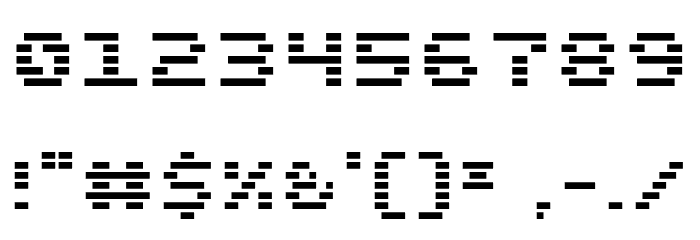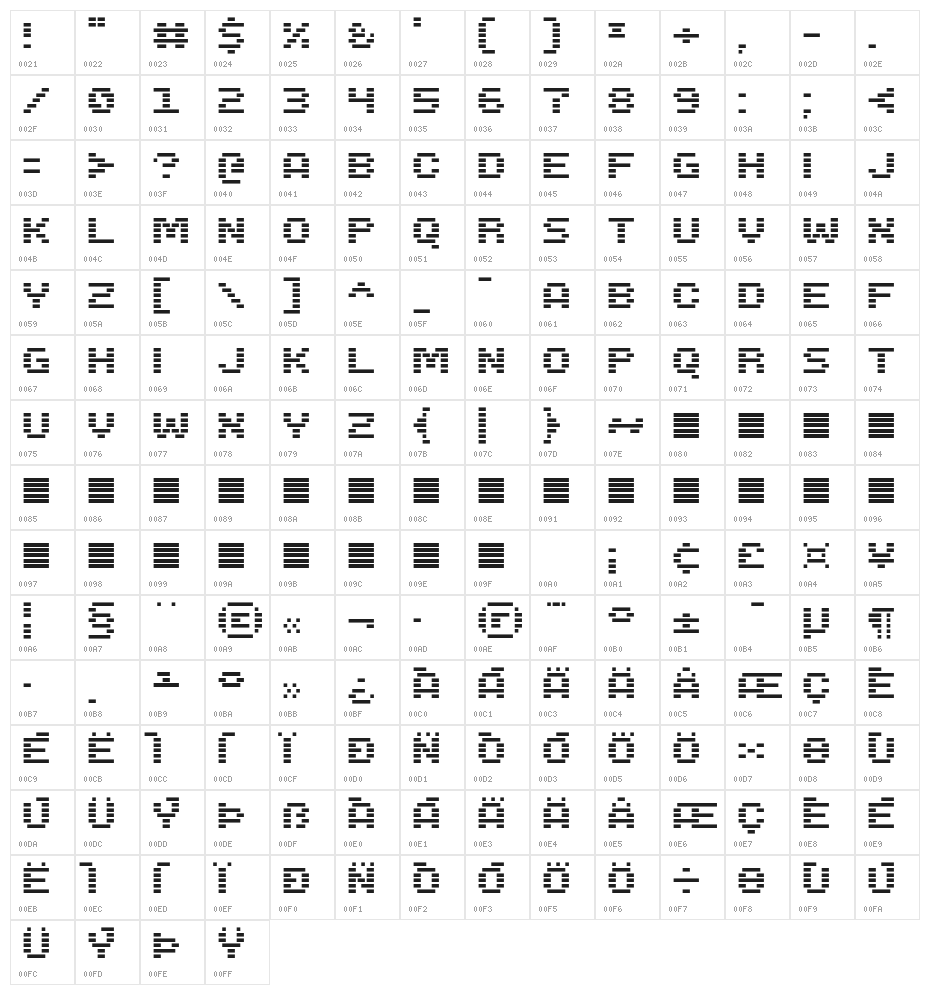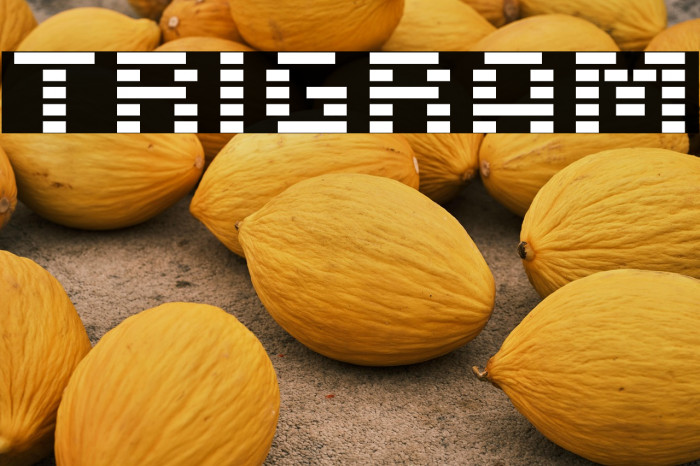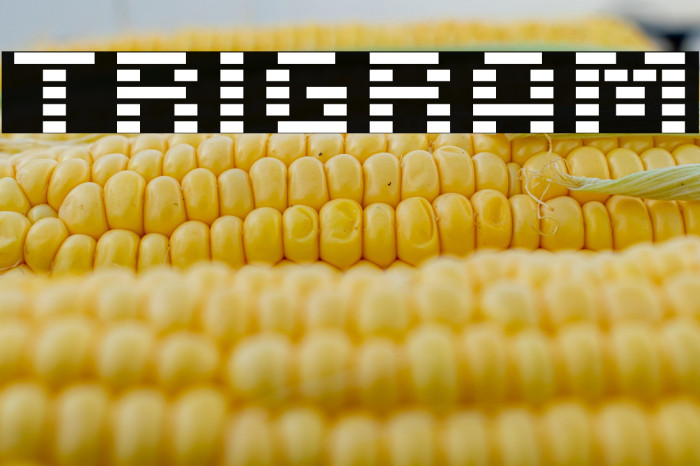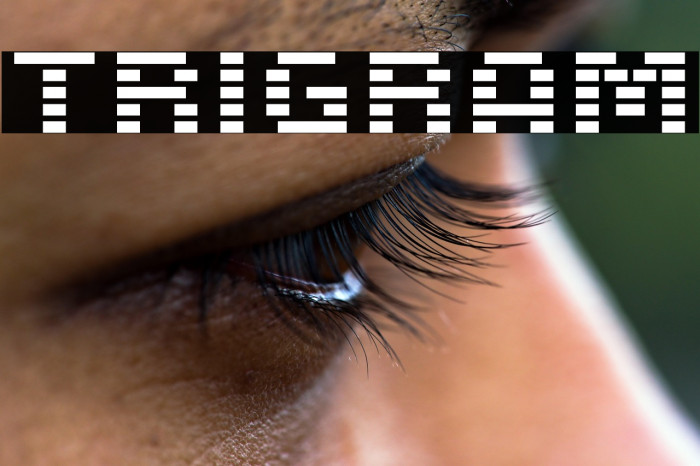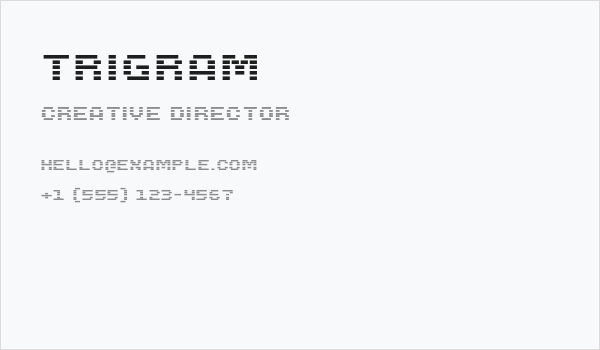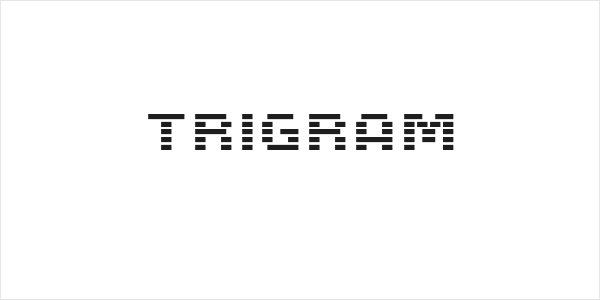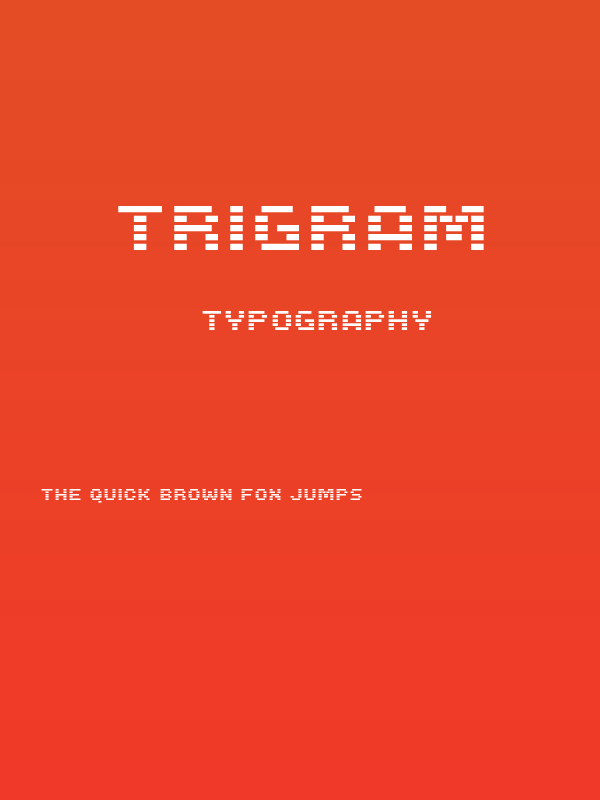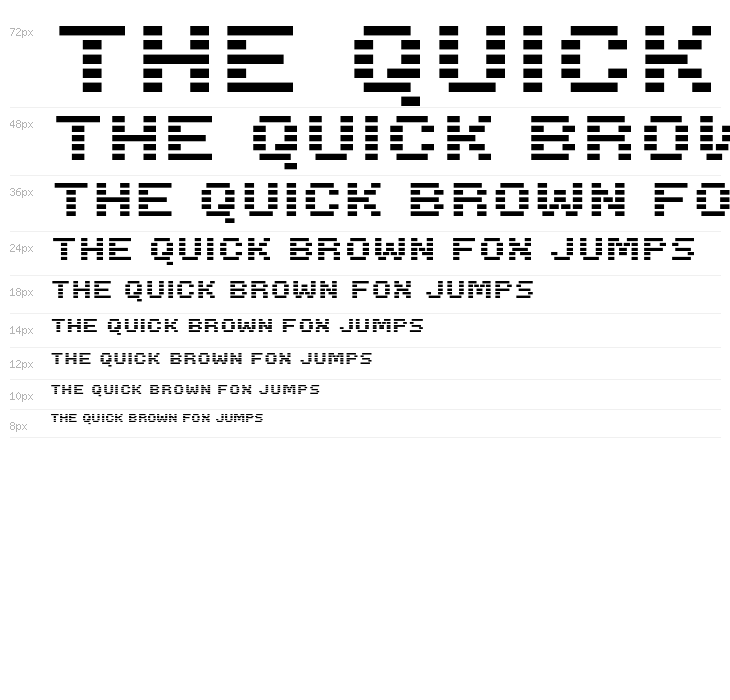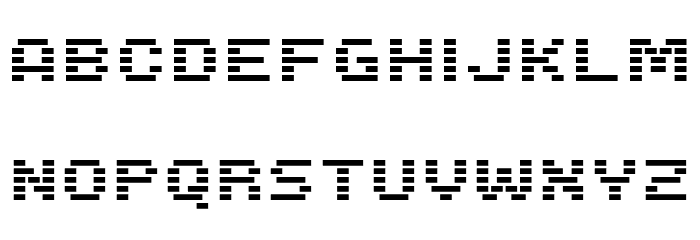
Trigram Font
Trigram Description
This font features a distinct, pixelated style reminiscent of early digital displays or retro video games. Each character is constructed from a grid of small, uniform squares, creating a blocky and geometric appearance. The uppercase and lowercase letters, as well as numbers and special characters, maintain a consistent height and width, emphasizing a monospaced design. The uniformity and simplicity of the design make it highly legible, even at smaller sizes, while the pixelated aesthetic adds a nostalgic and playful touch. This font is ideal for projects that aim to evoke a sense of nostalgia or to mimic the look of vintage technology.
| Use Case | Logos, Headlines, Digital displays |
| Proposed Projects | Ideal for retro video games, digital art, tech-themed posters, and nostalgic branding. |